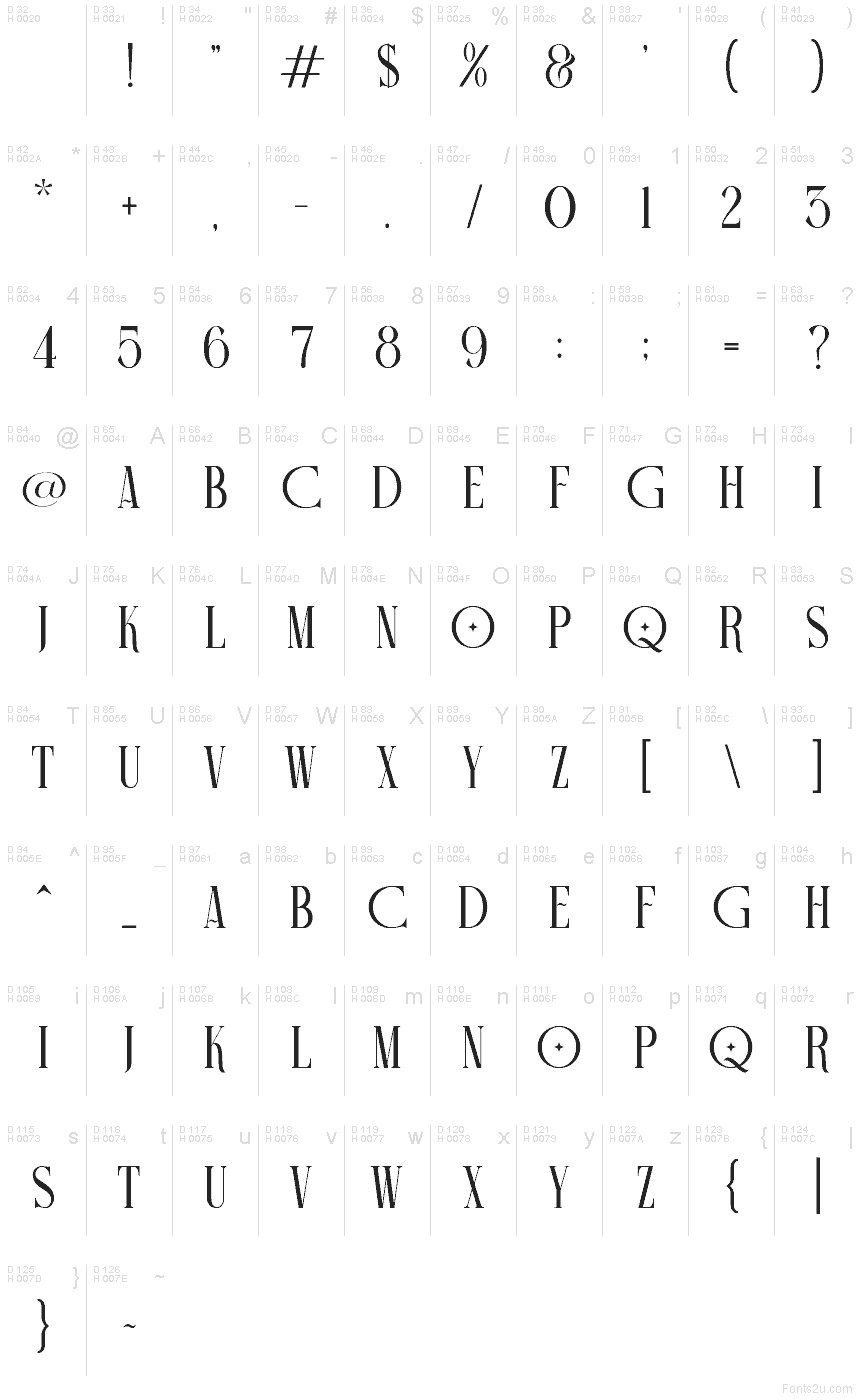
Camiro
Camiro font, designed by Graphicxell, is a condensed classic serif gem that embodies refined curves with an artistic flair. Its elegant and sophisticated styling offers timeless beauty that can elevate any project.
This free serif font is ideal for books, creative headlines, magazines, branding projects, marketing materials, stationery designs, product packaging, labels and tags covers; its subtle appearance will lend seriousness and intrinsic value to your projects.